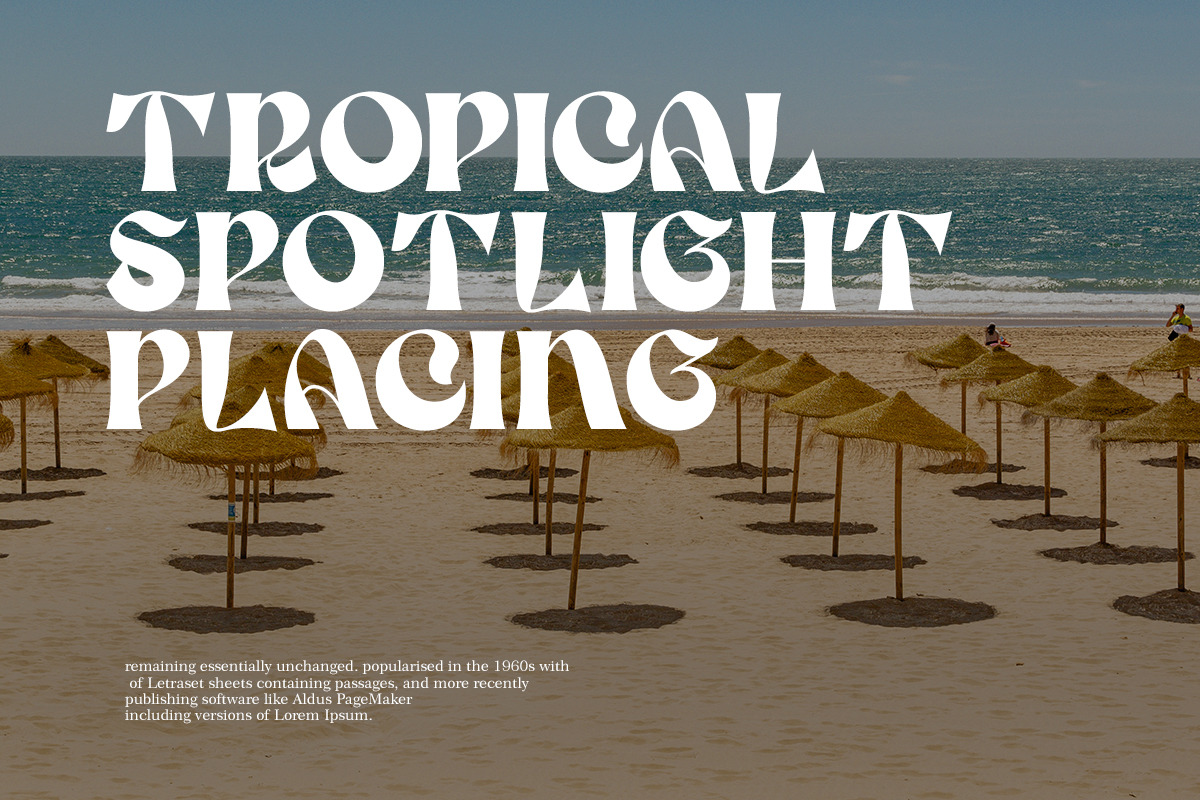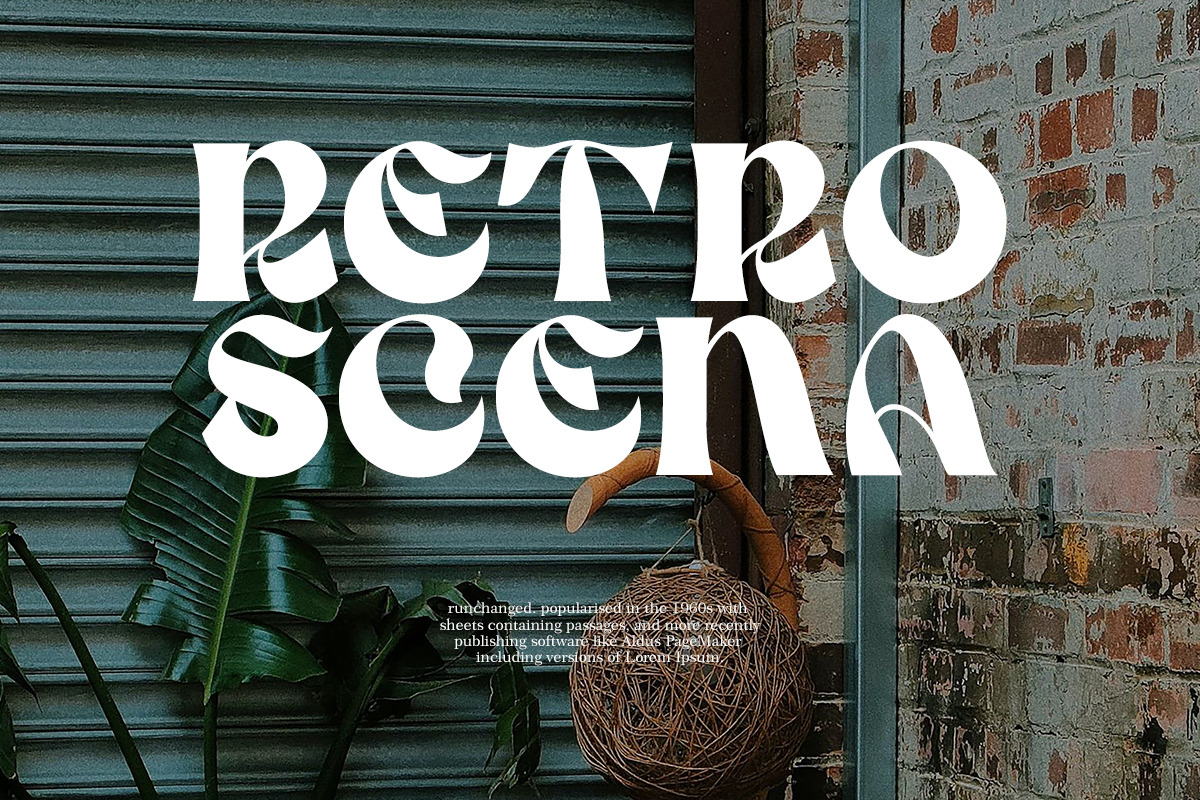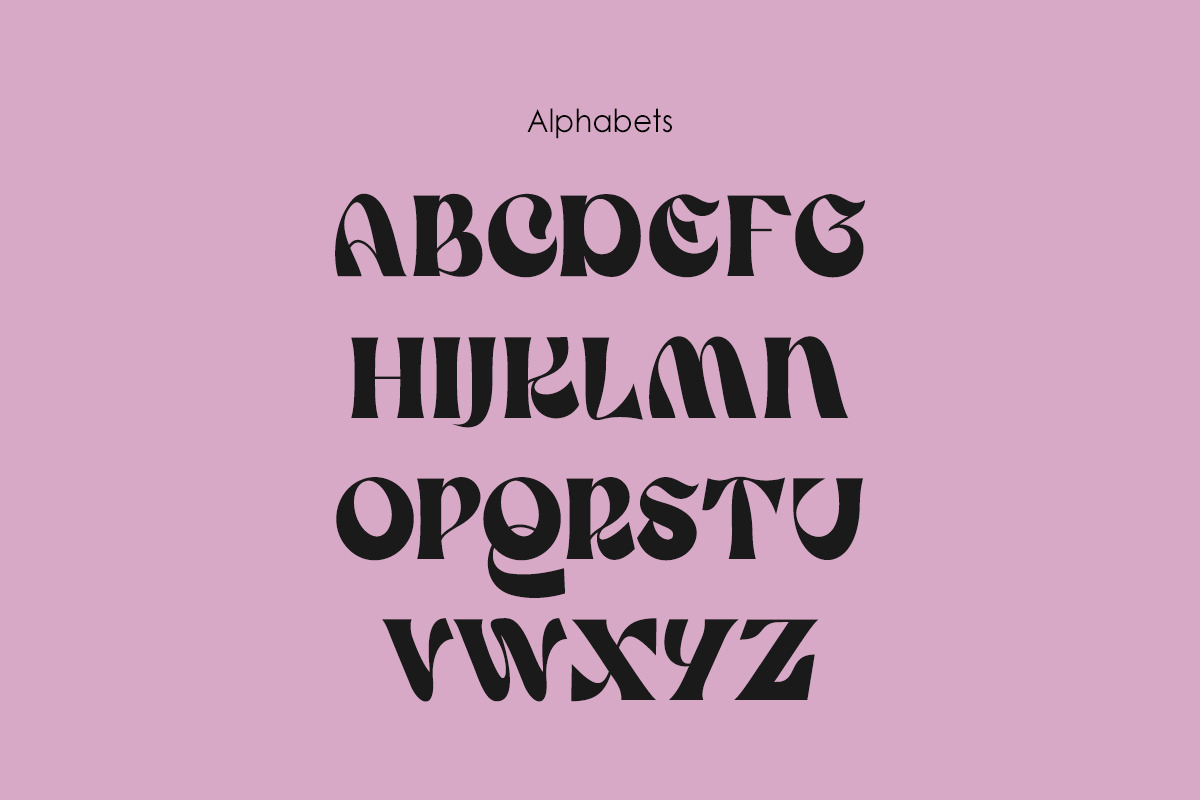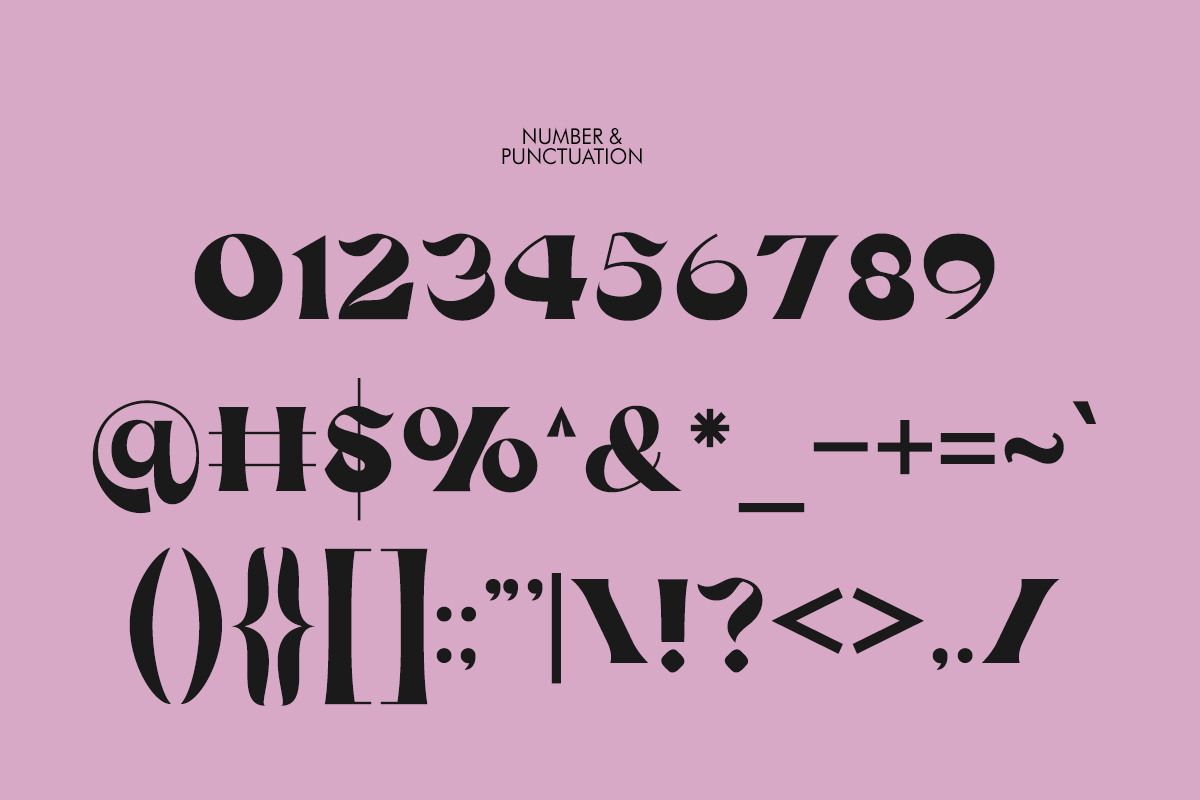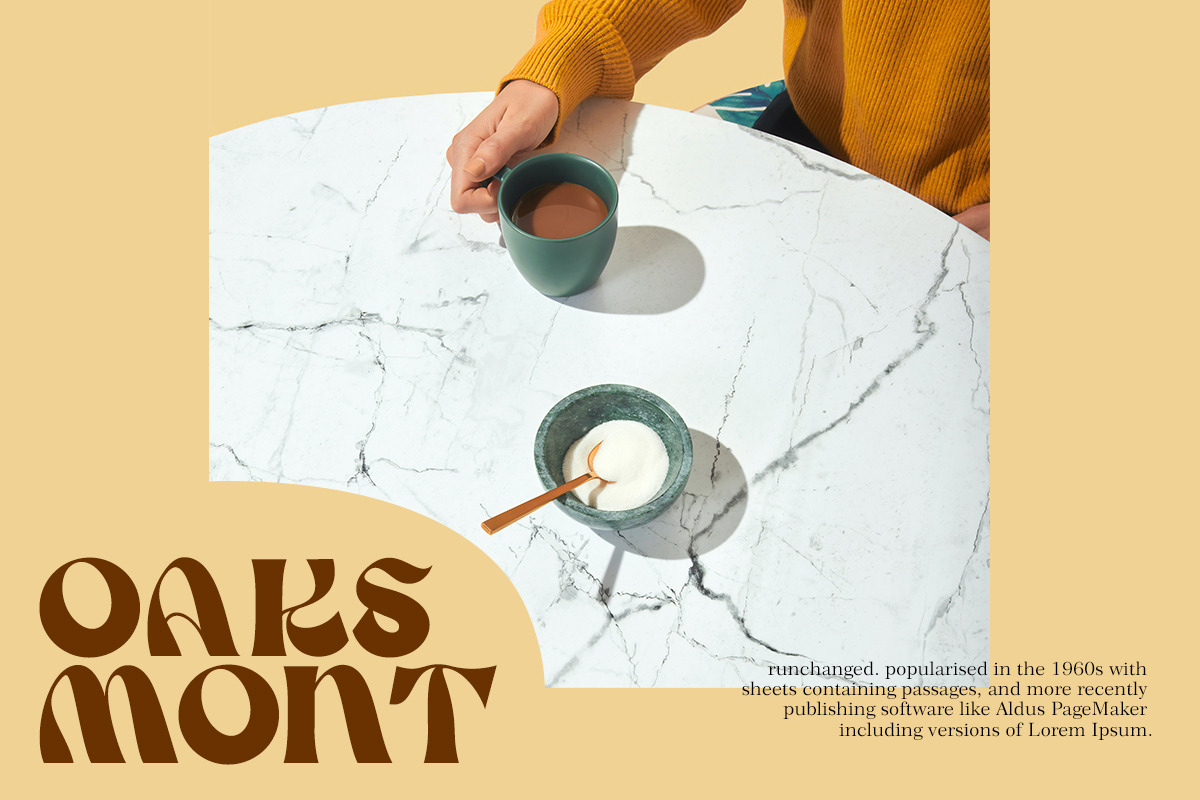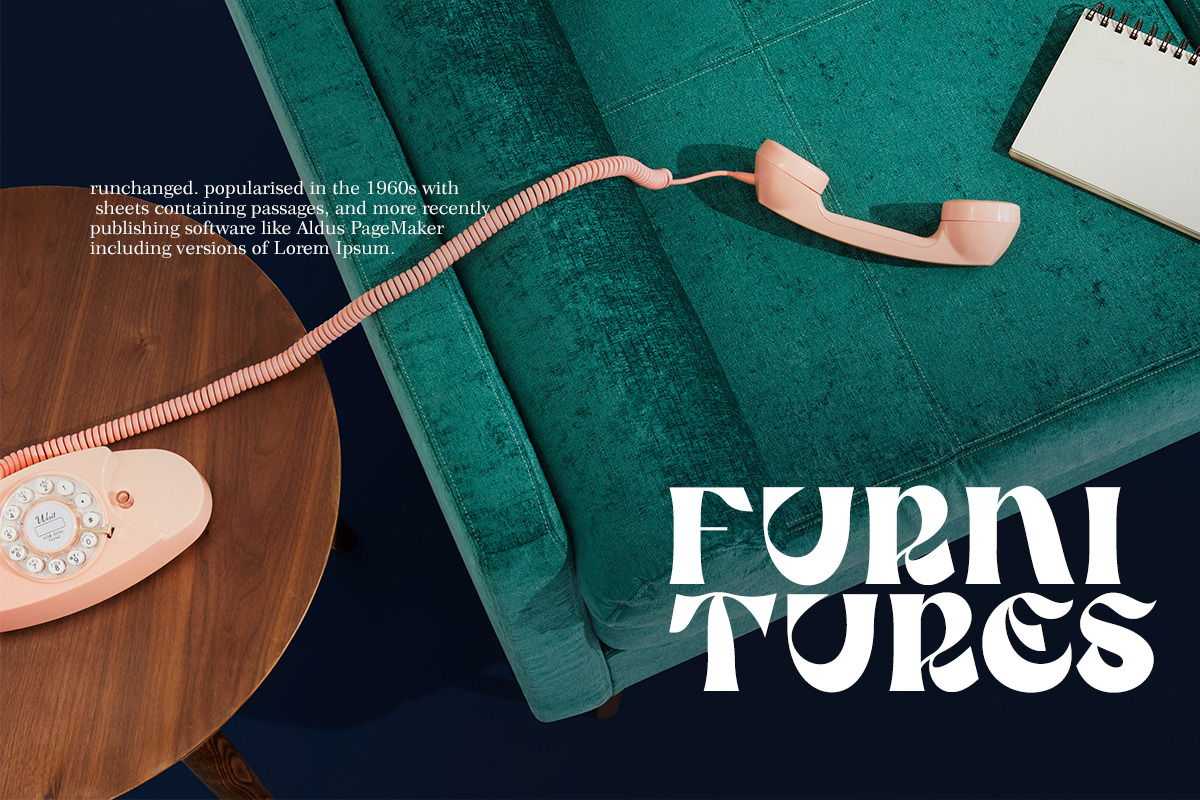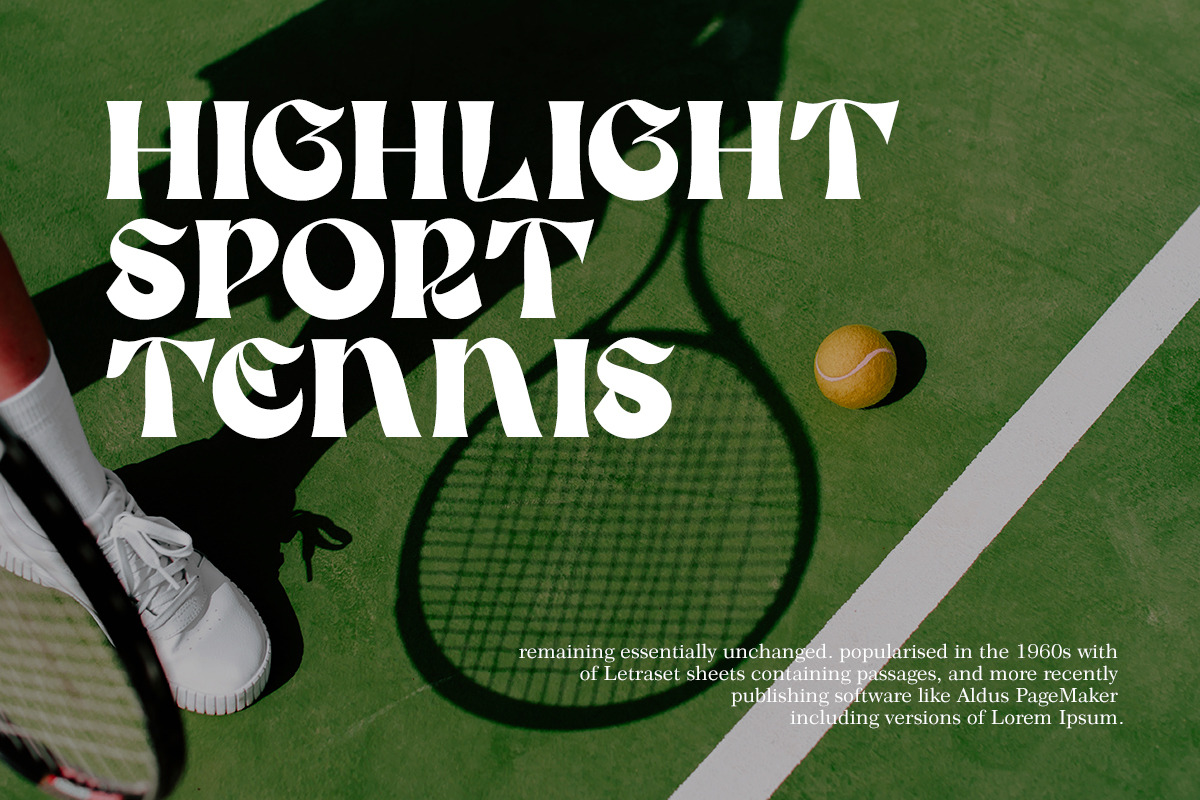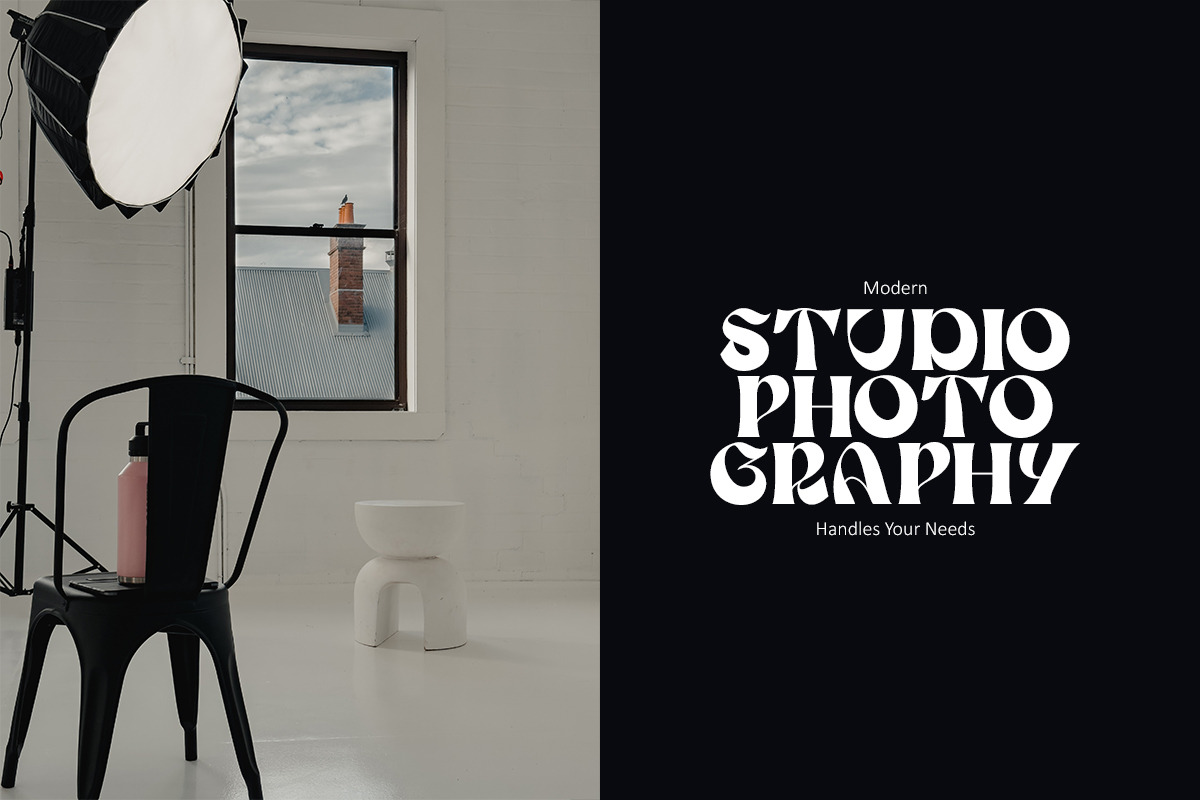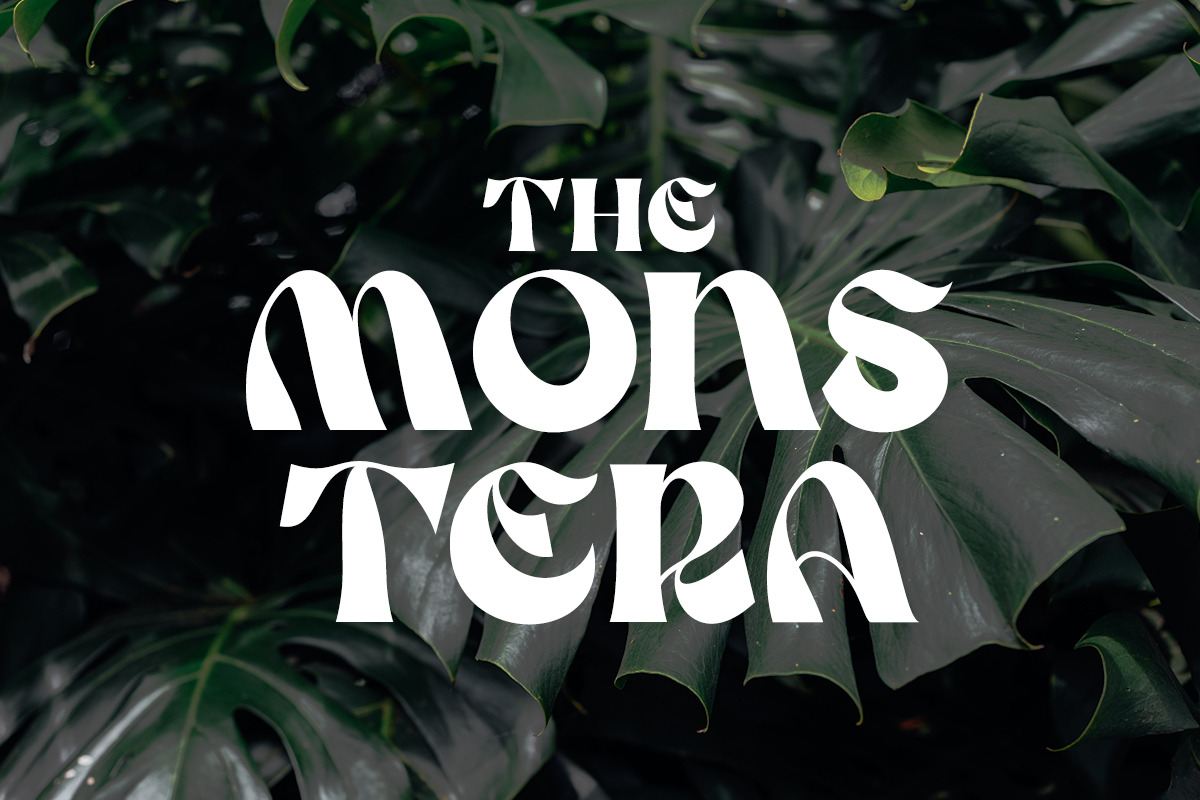
Stone WorldWide Modern Retro
Stone WorldWide fonts include uppercase letters, lowercase letters, numerals, a large range of punctuation. Display font with retro style. Created for poster, web design, branding, illustrations, badges, and some other works.